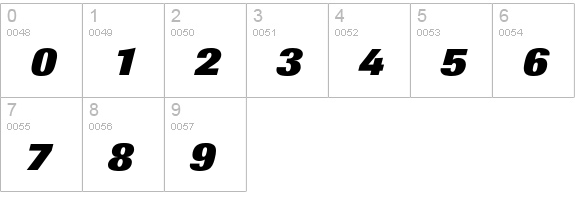
Berthold Imago BQ Extra Bold Italic is a strong, high-contrast, italic variant in the Berthold typeface family \xE2\x80\x94 well suited to headlines, attention-grabbing titles, and strong calls-to-action.
The Berthold Imago BQ Extra Bold Italic font is a bold and dynamic typeface that exudes confidence and modernity. Its sharp angles and sleek curves make it perfect for creating eye-catching designs that demand attention. Whether used for headlines, branding, or editorial design, this font commands a powerful presence on the page. What sets Berthold Imago BQ Extra Bold Italic font apart is its ability to convey a sense of strength and sophistication while maintaining a touch of elegance. The italicized style adds a sense of movement and flair to your text, making it an excellent choice for projects that require a bold and impactful statement. And the best part? Berthold Imago BQ Extra Bold Italic font is freely available to download at FontsMarket.com. So, designers and creatives can easily access this stunning typeface to elevate their work and bring their visions to life. Don't miss out on the opportunity to enhance your designs with this versatile and striking font today!